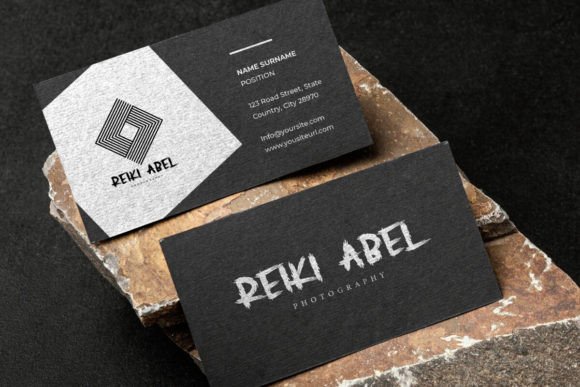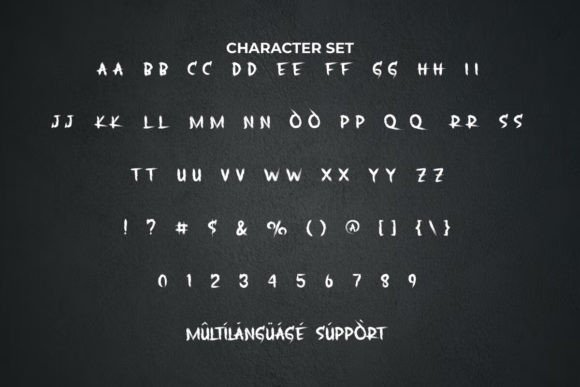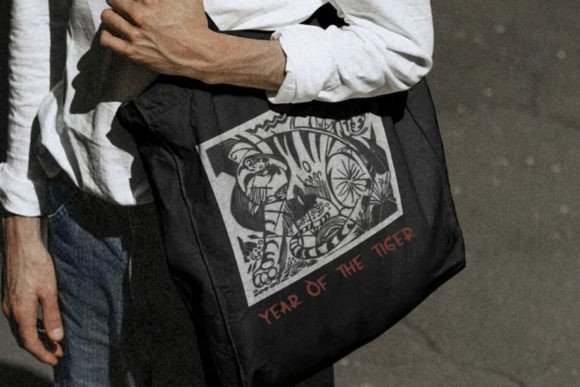
Introduction to Paranormal Tricks Font
Have you ever been working on a creative project and wanted to give it that extra oomph of spookiness? I know I have. There’s something about a well-placed, eerie font that can instantly elevate a design and transport the viewer to a different world. That’s where the Paranormal Tricks Font comes in – a mysterious horror display font that’s sure to send shivers down your spine.
With its special sketched texture and brush-like strokes, this font is perfect for adding a spooky handwriting look twist to any design project. Whether you’re working on a horror movie poster, a Halloween-themed magazine spread, or simply want to give your social media graphics a creepy edge, the Paranormal Tricks Font is a valuable design resource that’s sure to impress.
Key Features of Paranormal Tricks Font
- High-quality design resource with a unique, eerie aesthetic, perfect for creative projects that require a touch of the unknown.
- Unique characteristics include a range of paranormal-inspired symbols, glyphs, and effects that can add an otherworldly touch to any design project.
Honest Review: Paranormal Tricks Font
As a designer, I’m always on the lookout for unique and high-quality design resources. Recently, I came across the Paranormal Tricks Font, and I was excited to give it a try. After using it for a creative project, I’m happy to share my honest review.
- ✨ The font’s bold and playful style makes it perfect for titles and headings.
- ⚠️ The font is a bit limited in its character set, which can make it difficult to use for longer blocks of text.
- ⚠️ The font’s high contrast style can be a bit jarring in certain contexts.
The Paranormal Tricks Font is ideal for horror-themed projects, such as movie posters, book covers, or website designs. It’s also great for adding a touch of mystery or intrigue to your creative project.